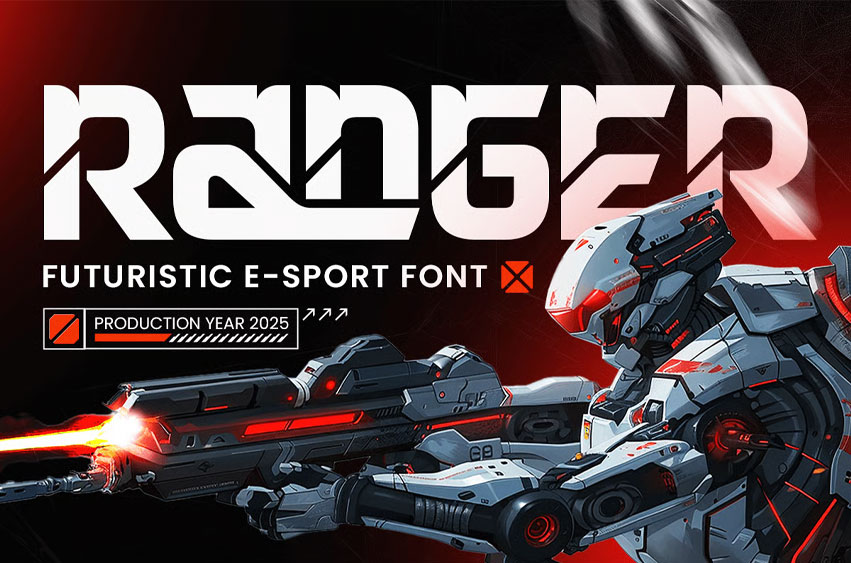
Ranger Font is a futuristic e-sport font designed for gaming, digital branding, and high-impact esports projects. Ideal for team logos, posters, banners, and social media graphics, it combines sharp geometric shapes with a modern, energetic aesthetic.
With bold, legible letterforms, RANGER ensures your designs look professional, dynamic, and futuristic across both digital and print media, making it perfect for esports and gaming brands.
RANGER – Futuristic E-Sport Font Features
• Futuristic and bold character set
• Perfect for e-sports, gaming, and display designs
• OpenType features for extra versatility
Level up your esports branding with RANGER – the ultimate futuristic font for bold and dynamic designs!